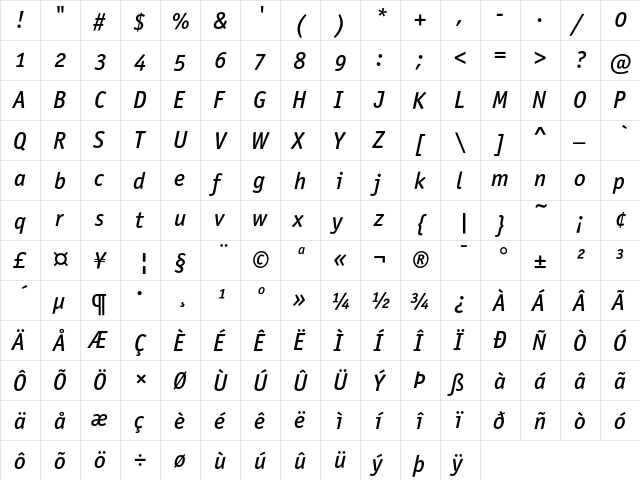
OfficinaSansITC Medium Italic OS
Design Context for OfficinaSansITC Typeface
OfficinaSansITC offers clean, dependable letterforms without strong stylistic allegiance, making it a practical choice for designers who need flexibility. The slanted form adds forward momentum and visual energy.
Pro Tip: Use OfficinaSansITC for emphasis, pull quotes, and subheadings where its slanted energy can add rhythm to the layout.